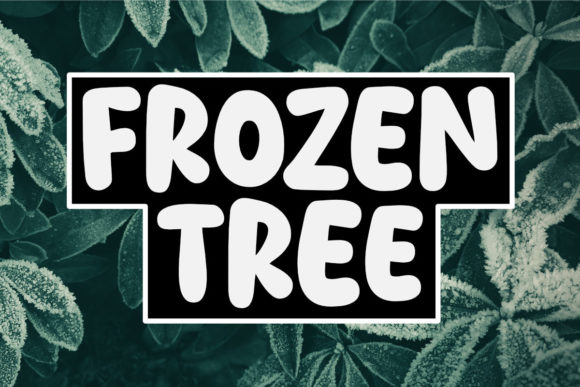
Introducing the Frozen Tree Font: A Whimsical Display Font for Bold Hashtags and Playful Designs
In a world saturated with bland and monotonous fonts, Frozen Tree Font emerges as a breath of fresh air, captivating your audience with its thick, playful letters and boundless charm. Designed by the talented Epiclinez, this display font is meticulously crafted to bring a touch of joy and personality to your creative endeavors.
With Frozen Tree Font, you can effortlessly elevate your designs, transforming ordinary words into bold statements that demand attention. Its whimsical nature makes it the perfect choice for cartoon-related designs, children's games, eye-catching quotes, captivating titles, unique brand names, enchanting book covers, vibrant posters, and any project that craves a spark of lightheartedness.
Picture this: your Instagram posts adorned with bold hashtags, each letter a burst of color and character, inviting your followers to engage and explore your content. Or envision your children's game, infused with the magic of Frozen Tree Font, captivating young minds and fueling their imaginations.
The possibilities are endless with Frozen Tree Font. Its versatility knows no bounds, making it an indispensable tool for designers, marketers, and anyone seeking to make a lasting impression. Join the ranks of those who have discovered the joy of Frozen Tree Font and let your creativity flourish.